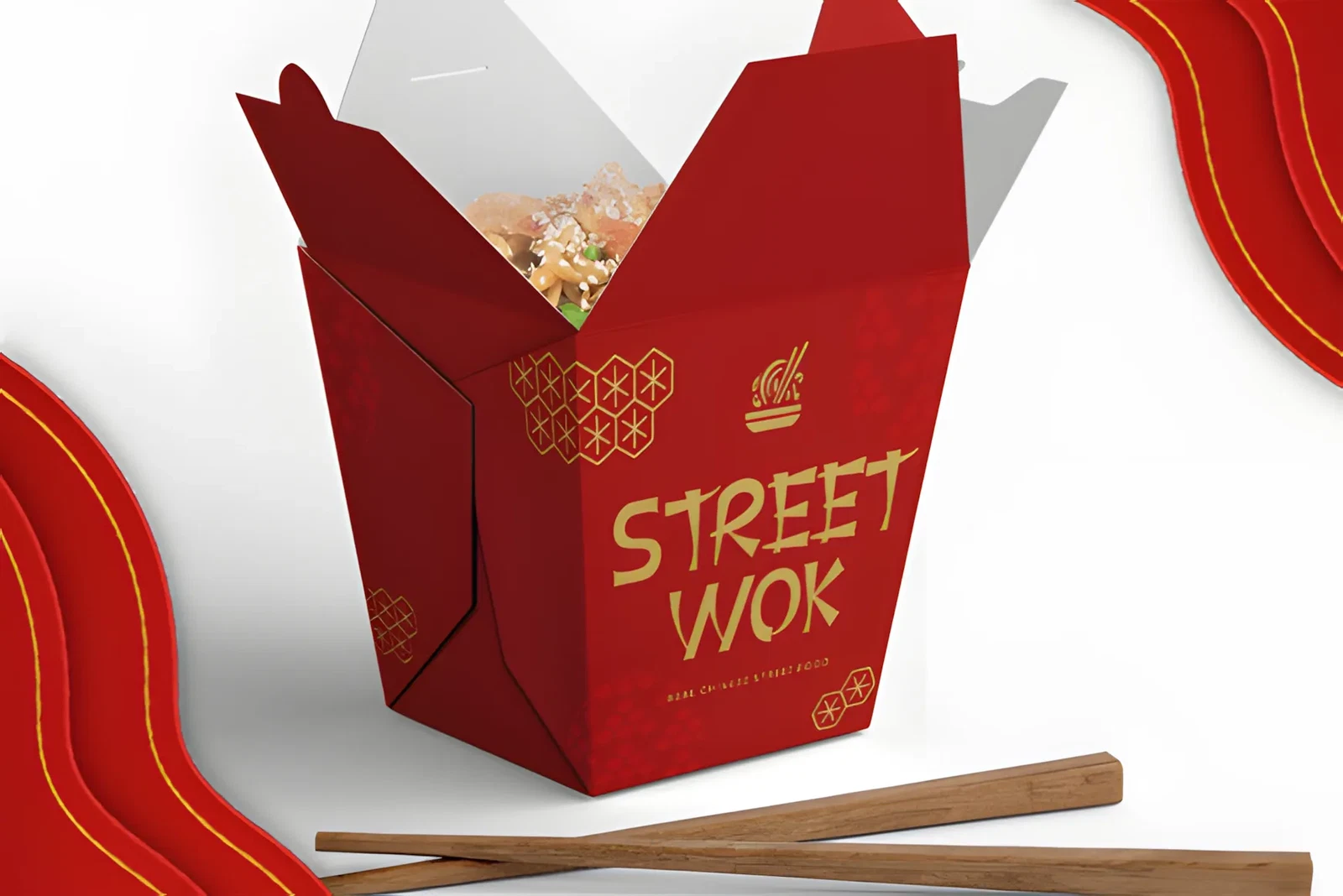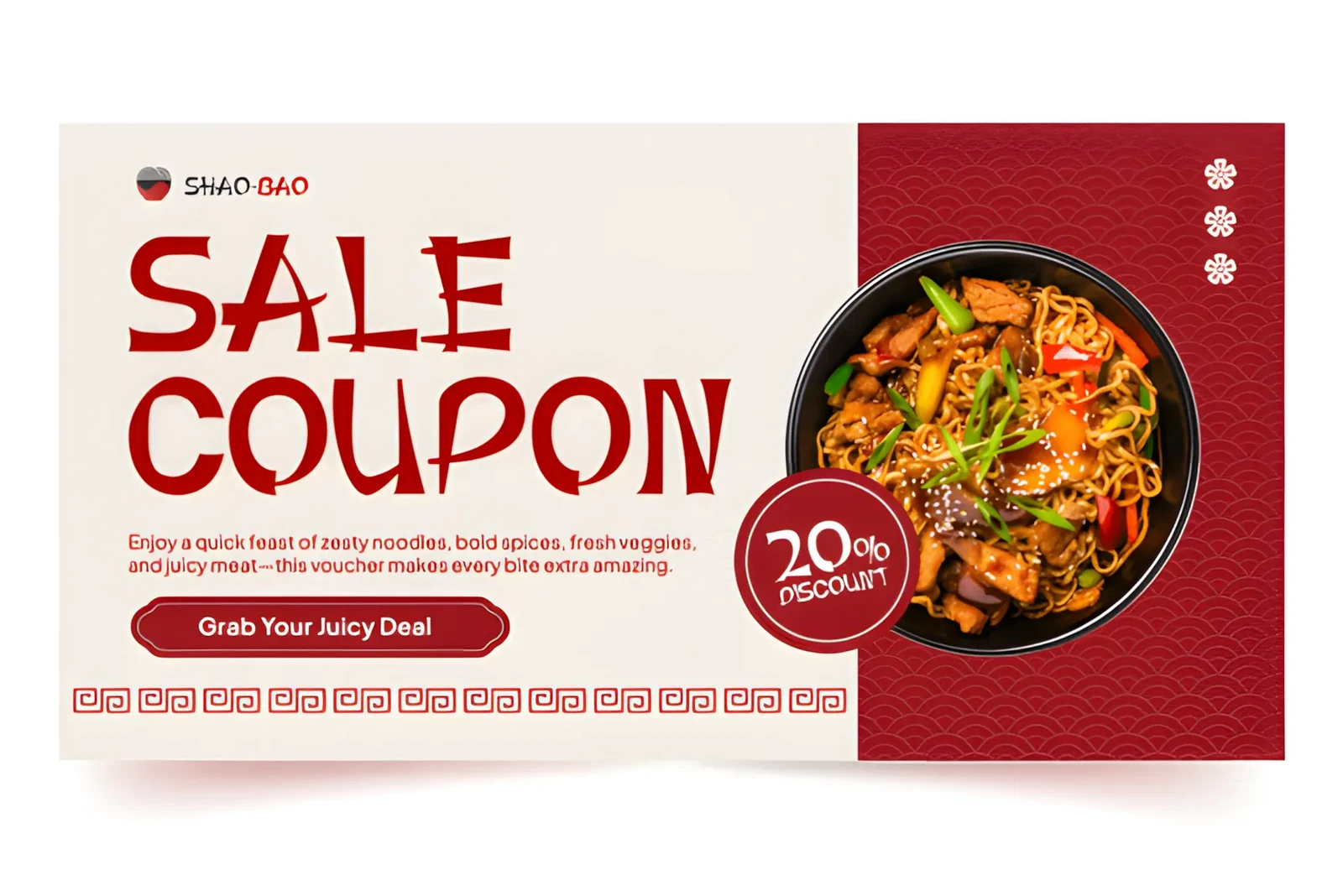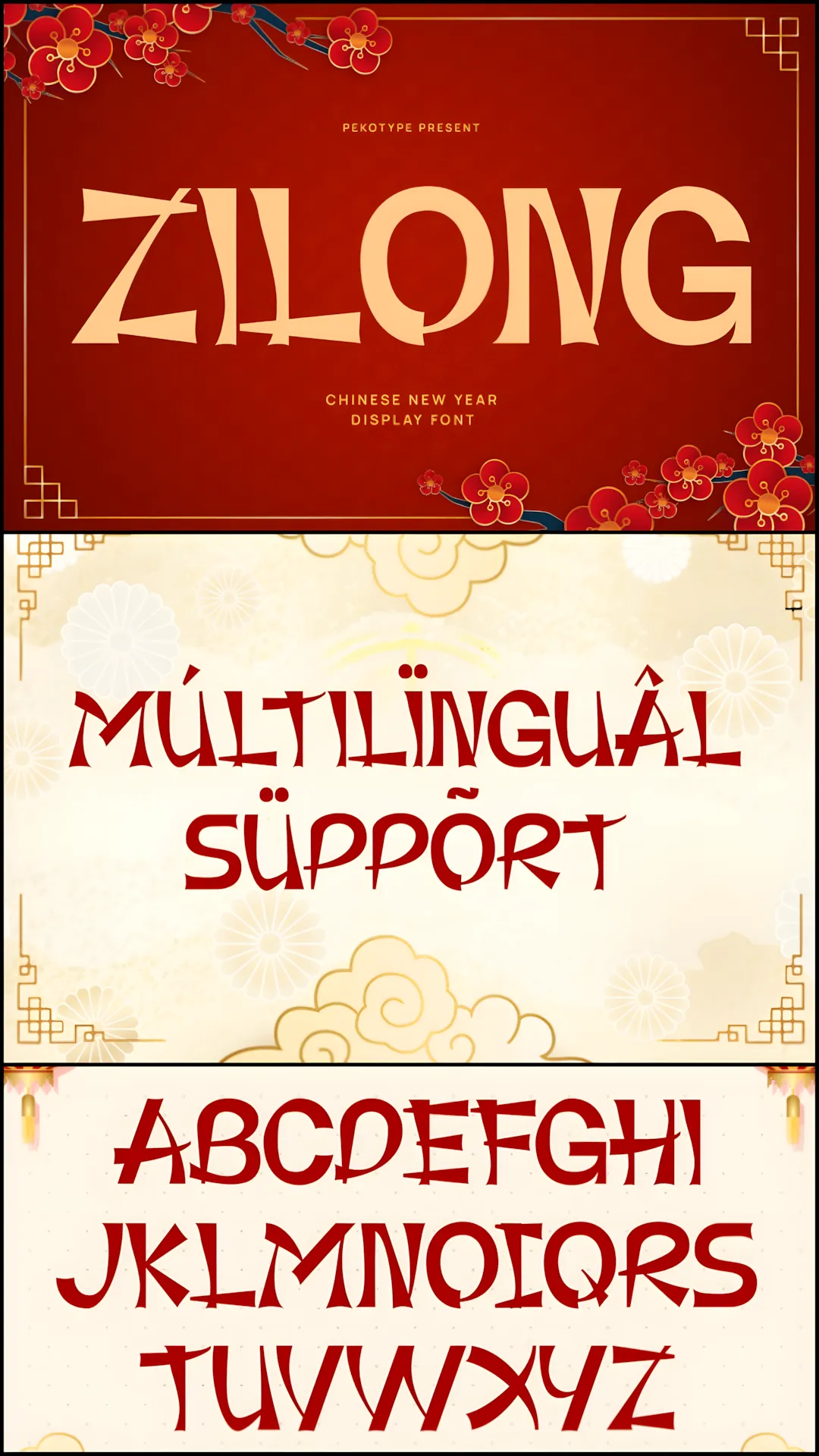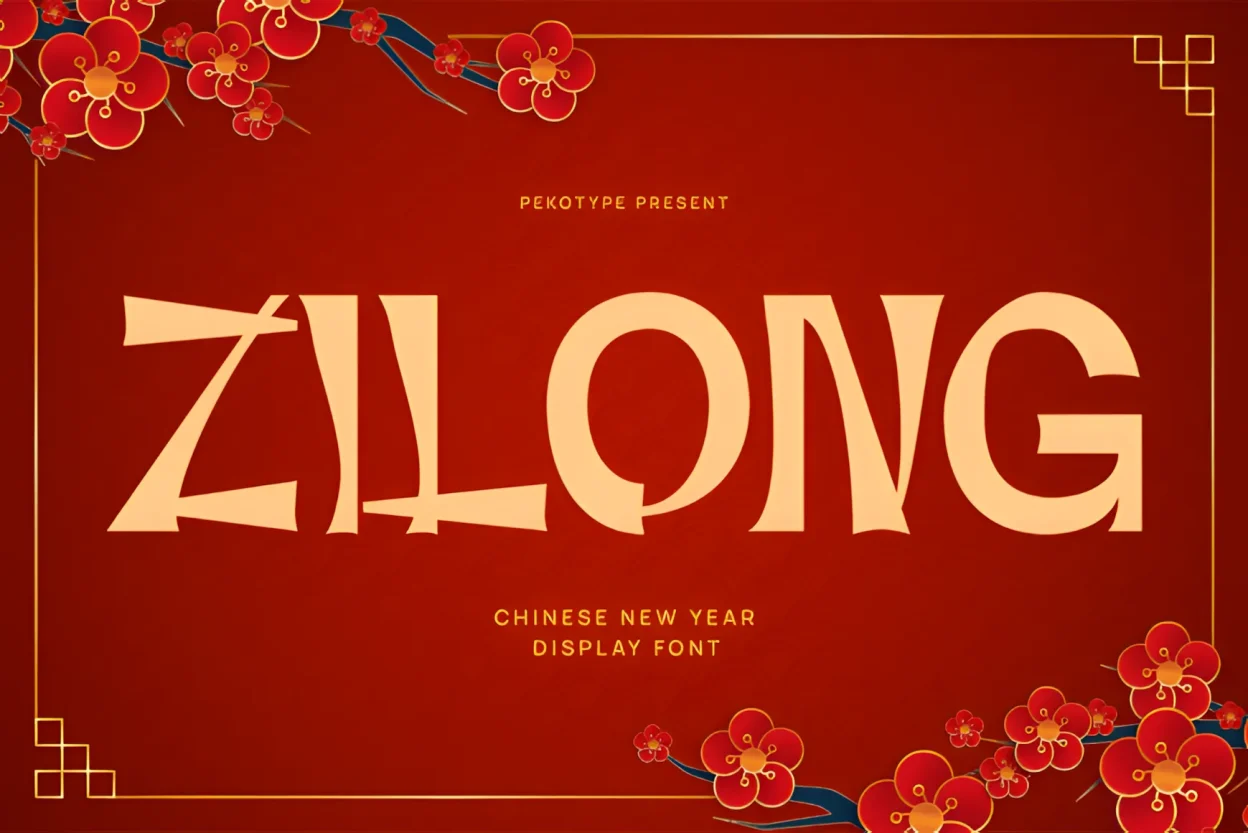
Typography is more than letters on a page — it’s a design element that sets mood, theme, and cultural context. When creativity calls for a typeface that blends tradition with bold visual identity, Zilong 2 Font rises to the occasion. Inspired by authentic Eastern design principles, Zilong 2 delivers a strong personality with decorative appeal, making it an excellent choice for projects that need cultural depth and visual impact.
Whether it’s branding for a restaurant, promotional materials for a festival, or packaging that evokes rich heritage, this bold decorative font adds character and distinction.
What Is Zilong 2 Font?
Zilong 2 Font is a decorative display typeface that marries traditional Asian design influence with modern usability. Its letterforms feature sharp strokes, balanced curves, and a visual rhythm that feels both ceremonial and contemporary.
Created for eye-catching titles and impactful visuals, this font isn’t intended for long paragraphs. Instead, it shines in headlines, logos, packaging, posters, and other design elements where a bold typographic voice is needed.
The design’s inspiration is rooted in Eastern artistic traditions, giving it a timeless quality that’s especially suited for cultural and celebratory applications.
Visual Style and Characteristics
Zilong 2 Font stands out due to its:
- Strong, dramatic letterforms
- Balanced mix of tradition and modernity
- Sharp yet elegant curves
- Cultural aesthetic with decorative power
The overall look is authoritative and expressive, making it ideal for designers who want their message to be heard loud and clear.
This typeface performs brilliantly in designs where the typography needs to capture attention without overwhelming other graphic elements — especially when paired with clean layouts and high-contrast color schemes.
Best Uses for Zilong 2 Font
Logo and Brand Identity Design
Zilong 2 Font works exceptionally well for logos and brand marks that require cultural nuance and bold design. It’s particularly suited for businesses that draw on Eastern themes, such as:
- Asian restaurants and tea houses
- Cultural festivals
- Travel and hospitality brands
- Creative studios with an international flair
The font’s strong presence helps establish brand recognition and conveys a sense of tradition with a modern twist.
Posters, Event Graphics, and Promotions
Typography plays a crucial role in event promotion, and Zilong 2 Font is a strong choice for posters, flyers, banners, and promotional graphics. Its bold strokes and decorative character help headlines stand out and communicate excitement and significance.
This makes it ideal for events such as:
- Lunar New Year celebrations
- Cultural festivals
- Holiday markets
- Art and music events
The font elevates visual messaging with both style and cultural resonance.
Packaging and Product Design
In packaging design, first impressions matter. Zilong 2 Font brings a sense of authenticity and premium feel to product labeling, box designs, menus, and merchandise packaging.
Brands that emphasize cultural tradition and high-quality craftsmanship can benefit from the font’s decorative aesthetic. Its use in premium packaging communicates a commitment to detail and visual sophistication.
Digital Content and Social Media
In digital design, strong typography helps content stand out in crowded feeds. Zilong 2 Font is especially effective in digital headers, social media graphics, landing page banners, and digital ads where bold visuals are essential.
The font’s bold style ensures that key messages are readable and visually engaging across screens and platforms.
Advantages of Choosing Zilong 2 Font
- Bold and decorative display style
- Cultural depth with modern usability
- Ideal for logos, branding, and event design
- Suitable for both print and digital applications
- Enhances packaging, posters, and visual promotions
Whether the goal is to make a bold statement or to evoke cultural elegance, Zilong 2 Font offers a unique typographic solution.
Zilong 2 Font is a bold and distinctive decorative display typeface that combines cultural resonance with modern design sensibilities. It excels in projects where typography needs to be both expressive and meaningful — from logo design and branding to event posters and promotional materials.
For designers seeking a decorative font with Eastern influence and strong visual impact, Zilong 2 Font is a compelling choice.